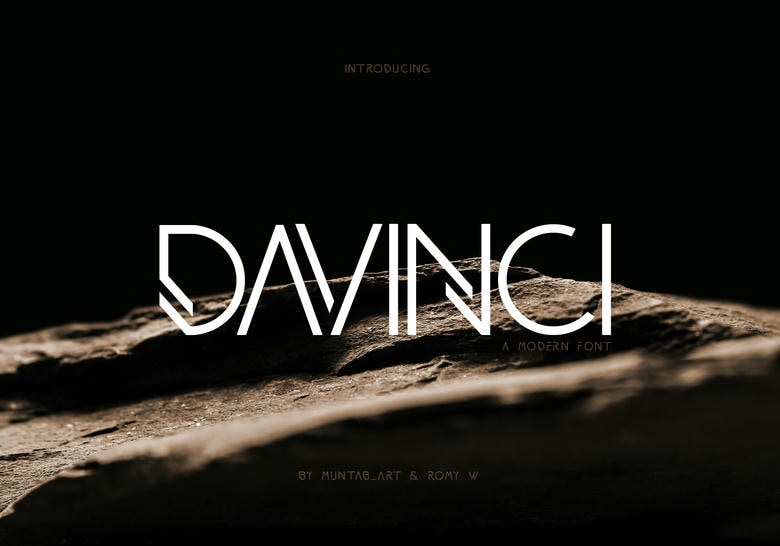
Davinci Font
Davinci is a beautiful and classic bold twist, sans serif typeface. Fall in love with its chic simplicity. It can be used in classy logos, branding, travel advertisements, layout magazines, beauty products, product packaging, quotes or just a classy text on top of any picture background.
Davinci Sans Serif Font